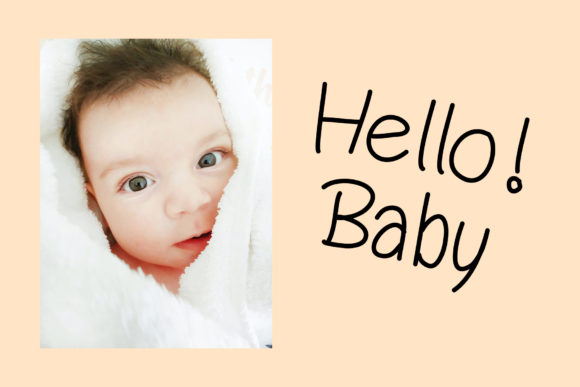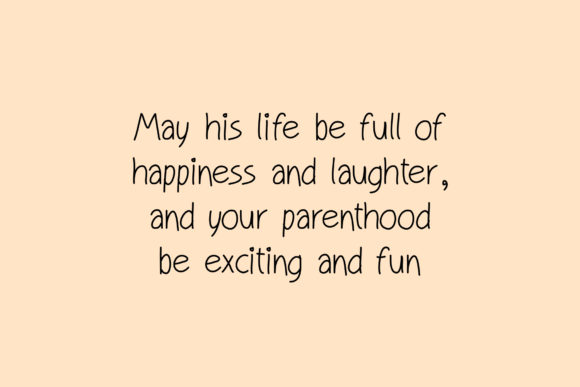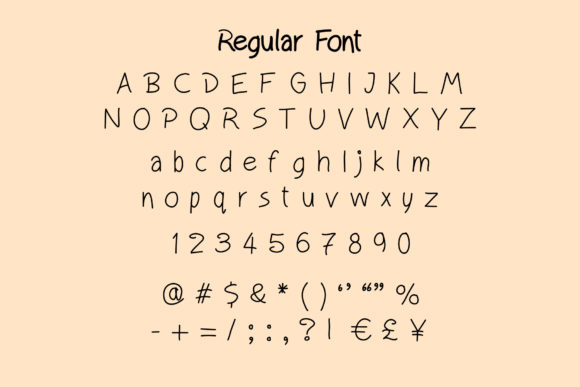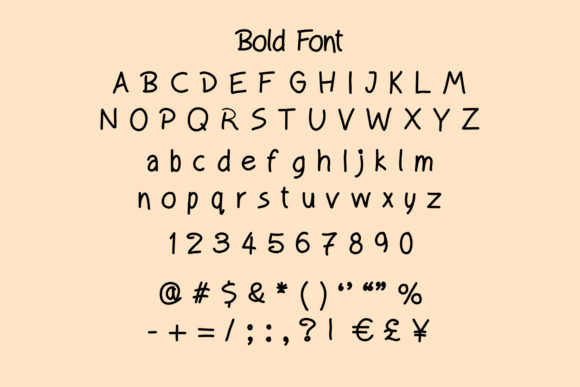
Dylan Font: A Cute and Timeless Handwritten Font for Your Creative Projects
Are you looking for a font that exudes a sense of casual charm and timeless appeal? Look no further than the Dylan font. This beautifully crafted handwritten font is perfect for designers and crafters who want to add a touch of personality to their projects. In this article, we’ll take a closer look at the Dylan font, its features, and how you can use it to elevate your designs.
What is Dylan Font?
Dylan is a cute and timeless handwritten font that boasts a casual charm that makes it appear wonderfully down-to-earth, readable, and incredibly versatile. Its unique character makes it perfect for a wide range of design projects, from branding and advertising to packaging and digital media. Whether you’re looking to create a standout headline or add some personality to your body text, Dylan is an excellent choice.
Key Features of Dylan Font
So, what makes Dylan font so special? Here are some of its key features:
- Cute and Timeless Design: Dylan font has a classic, handwritten design that is both cute and timeless. Its unique character makes it perfect for designers who want to add a touch of personality to their projects.
- Casual Charm: The font’s casual charm makes it appear wonderfully down-to-earth and readable, even in small sizes.
- Versatility: Dylan font is incredibly versatile and can be used in a wide range of design projects, from busy backgrounds to standalone headlines.
- Readability: The font is highly readable, even in small sizes, making it perfect for body text and other applications where legibility is key.
How to Use Dylan Font in Your Designs
Now that we’ve covered the features of Dylan font, let’s take a look at how you can use it in your designs. Here are some ideas to get you started:
- Branding and Advertising: Use Dylan font to create eye-catching logos, taglines, and ad copy that stands out from the crowd.
- Packaging Design: Add a touch of personality to your packaging designs with Dylan font. It’s perfect for labels, product descriptions, and other packaging elements.
- Digital Media: Use Dylan font in your digital media projects, such as social media graphics, blog posts, and email newsletters.
- Handmade and Crafting Projects: Dylan font is perfect for handmade and crafting projects, such as DIY tutorials, craft patterns, and handmade product labels.
Tips for Getting the Most Out of Dylan Font
Here are some tips for getting the most out of Dylan font:
- Experiment with Different Sizes: Don’t be afraid to experiment with different font sizes to find the perfect balance for your design.
- Pair with Other Fonts: Dylan font pairs well with other fonts, so don’t be afraid to try pairing it with other fonts to create a unique look.
- Use on Busy Backgrounds: Dylan font is perfect for use on busy backgrounds, as its casual charm and readability make it stand out from the crowd.
- Use as a Standalone Headline: Use Dylan font as a standalone headline to create a striking and eye-catching effect.
| Font Name | Dylan Font |
| Author | Brown Cupple Design |
In conclusion, Dylan font is a cute and timeless handwritten font that is perfect for designers and crafters who want to add a touch of personality to their projects. Its casual charm, readability, and versatility make it an excellent choice for a wide range of design projects. Whether you’re looking to create a standout headline or add some personality to your body text, Dylan font is an excellent choice. So why not give it a try and see how it can elevate your designs?